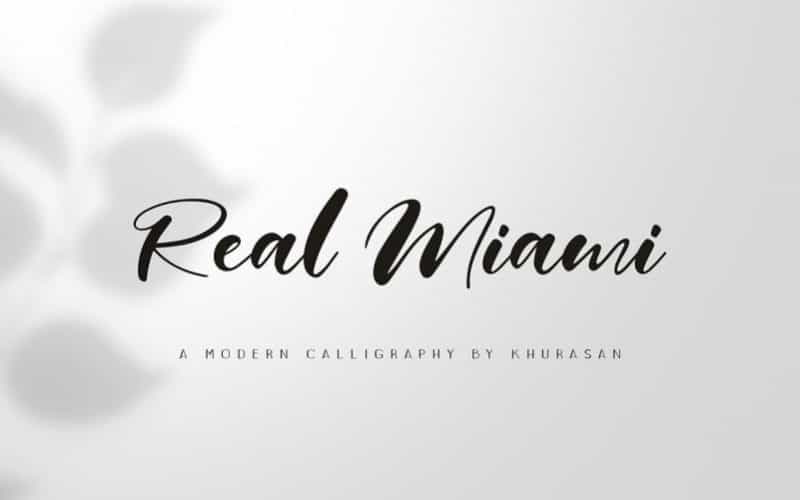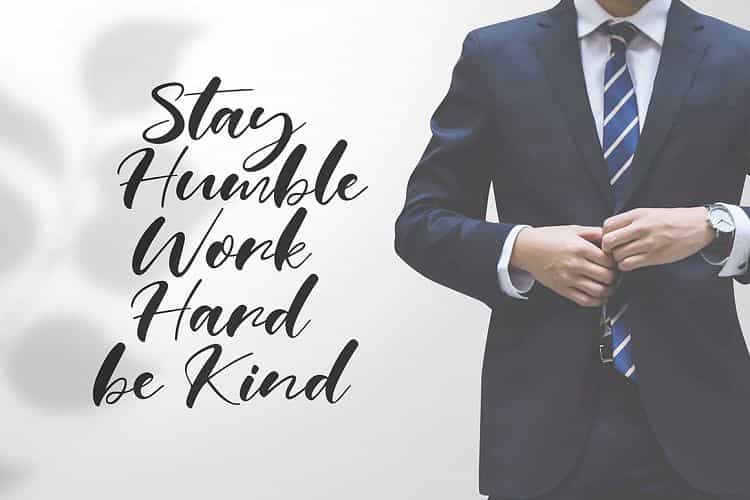
The Real Miami Script Font is a funny and bold script font with a fresh and modern style. Real Miami Script Font is an ideal font for creating logos, branding, greeting cards, posters and any other design that you can think of.